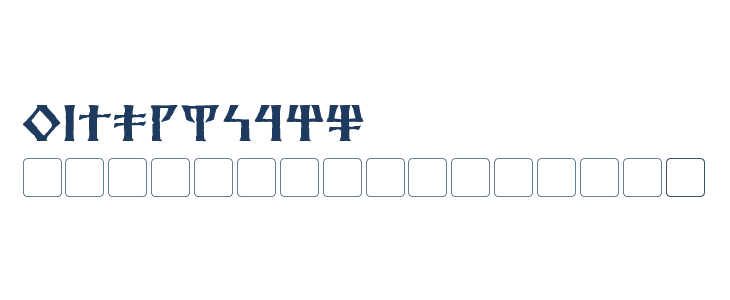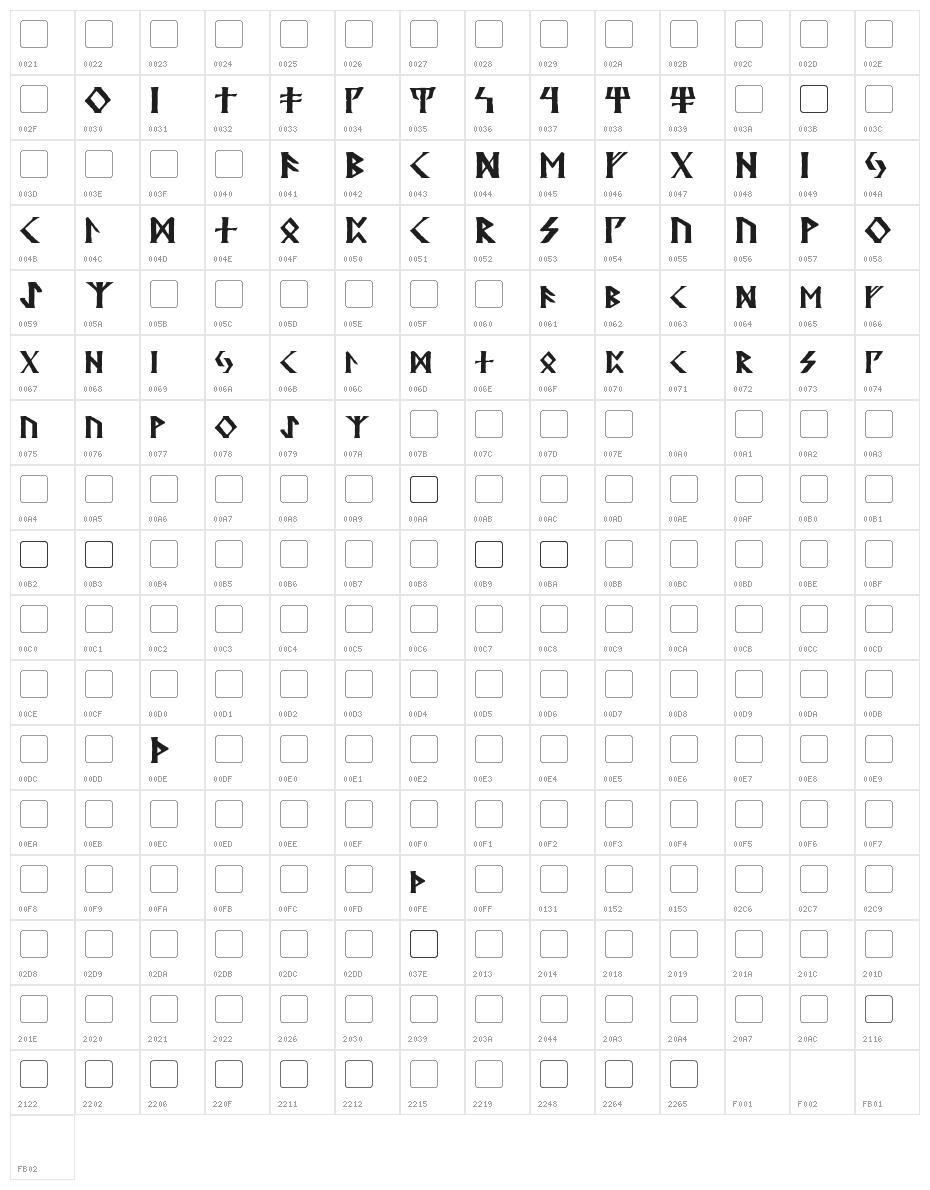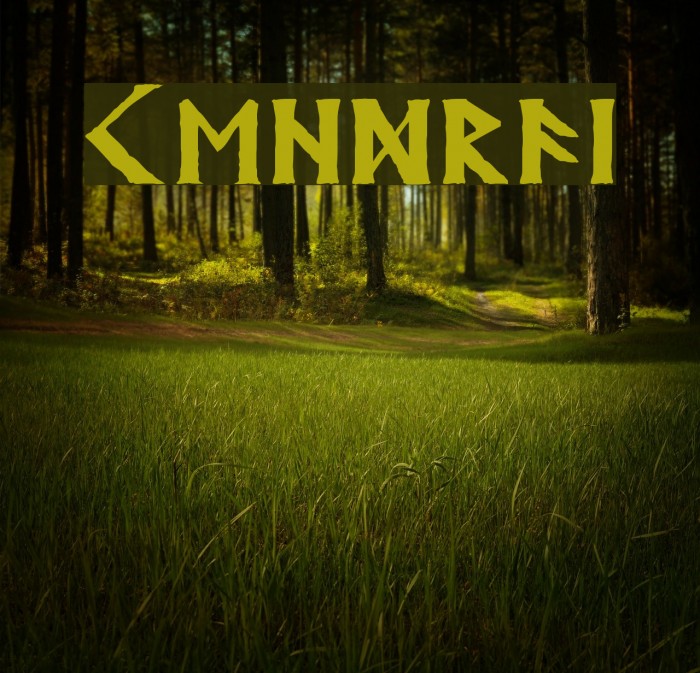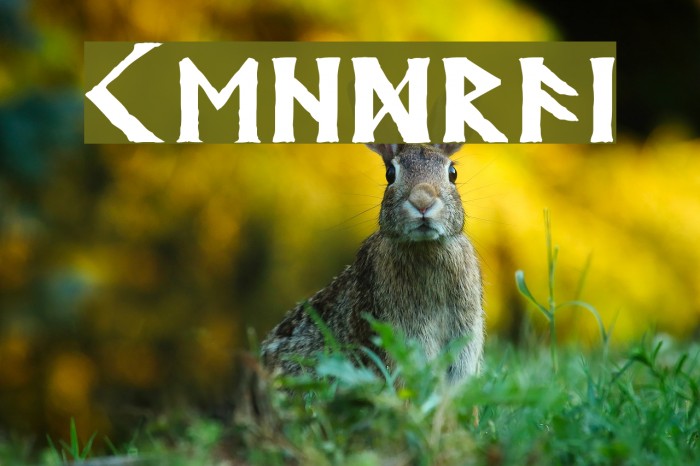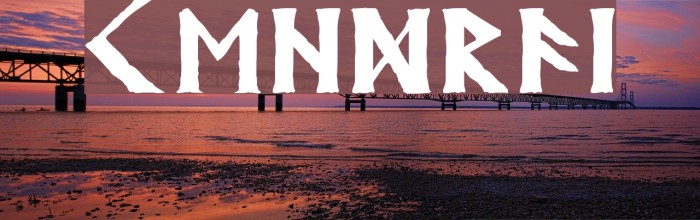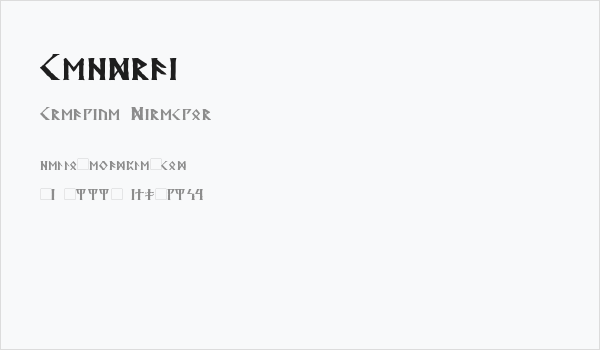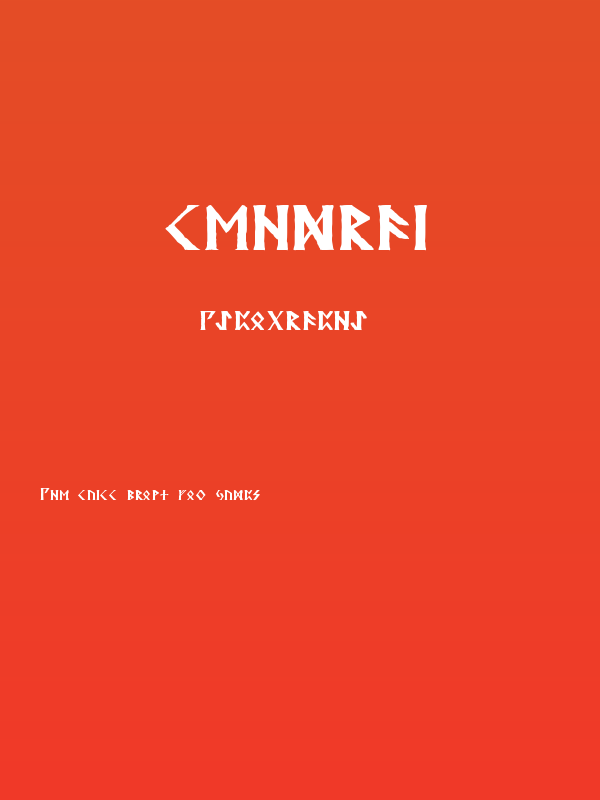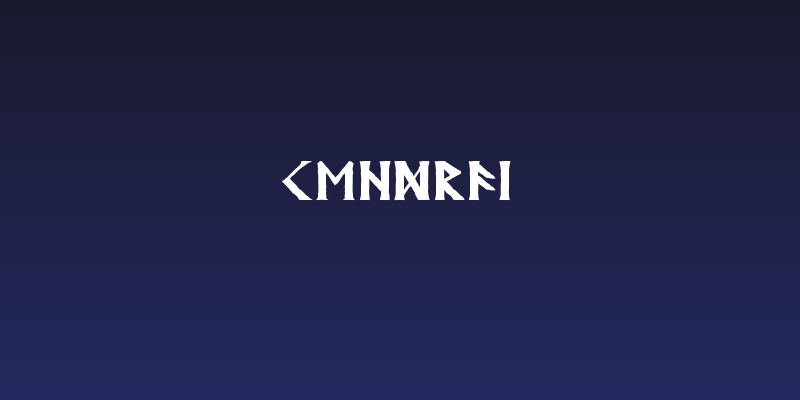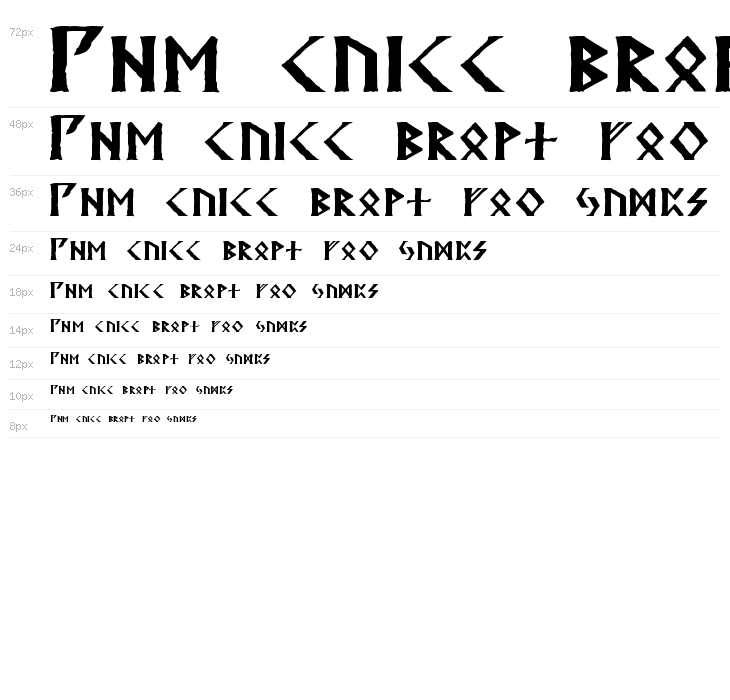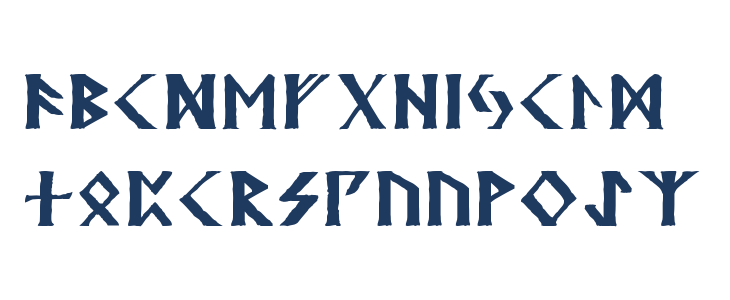
Kehdrai Font
This font features a bold, angular design reminiscent of ancient runic or tribal scripts. The characters are constructed with sharp, geometric lines and distinct angles, giving them a striking and aggressive appearance. The uppercase letters are particularly bold, with a consistent height and width, while the lowercase letters maintain the same angular style but with slightly reduced size. The numerals and special characters follow the same design principles, ensuring uniformity across the font. The overall aesthetic is both historical and modern, making it suitable for projects that require a unique and eye-catching typeface.
Proposed ProjectsIdeal for fantasy-themed projects, video game titles, movie posters, or any design requiring a bold, historical look.